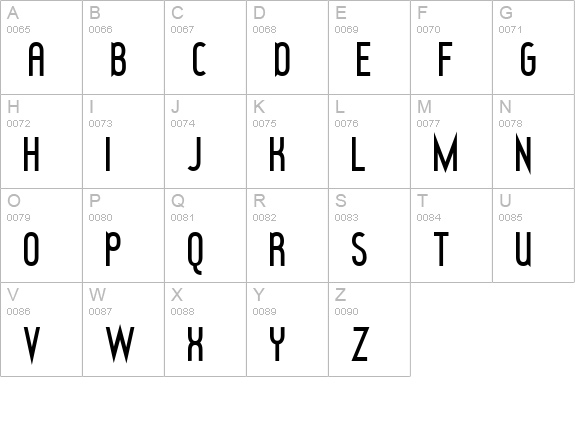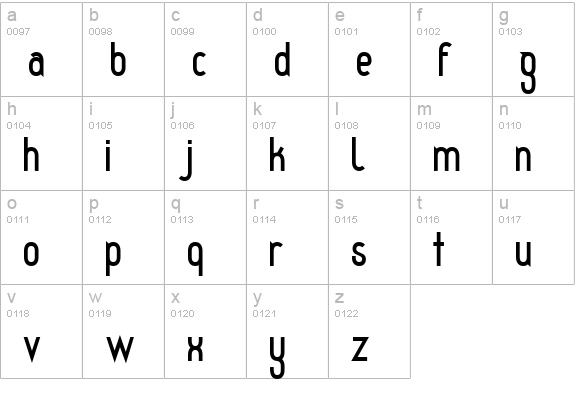
Redhead Goddess Bold Font Details
Redhead Goddess Bold is a strong, high-contrast variant in the Redhead typeface family \xE2\x80\x94 well suited to headlines, attention-grabbing titles, and strong calls-to-action.
Introducing Redhead Goddess Bold, a captivating font that exudes confidence and allure. Designed for those seeking to make a bold statement, this typeface embodies the essence of a fiery redhead goddess, commanding attention and leaving a lasting impression. With its strong and commanding letterforms, Redhead Goddess Bold is perfect for headlines, branding projects, and eye-catching designs that demand to be noticed. Its unique blend of elegant curves and powerful strokes adds a touch of sophistication to any project, while its bold weight ensures maximum impact. This font's versatility is truly remarkable, as it seamlessly transitions from elegant and refined to edgy and fierce, making it ideal for a wide range of applications. Whether you're designing a striking poster, a captivating logo, or a daring fashion editorial, Redhead Goddess Bold will effortlessly bring your creative vision to life. What truly sets Redhead Goddess Bold apart is its accessibility. We believe that creativity should be free, and that's why we are proud to offer this extraordinary font for free download at FontsMarket.com. Now, everyone can unleash their inner redhead goddess and make their designs stand out from the crowd, without breaking the bank. So, don't hesitate to adorn your projects with the irresistible charm and magnetic allure of Redhead Goddess Bold. Download this font for free at FontsMarket.com and let your creativity soar to new heights.